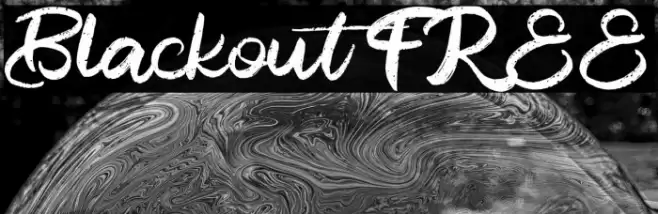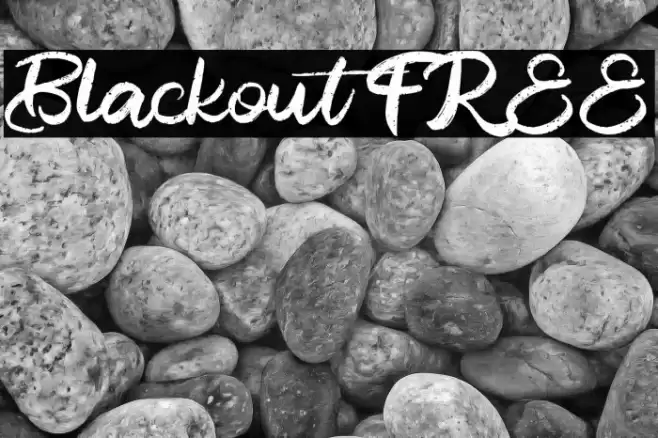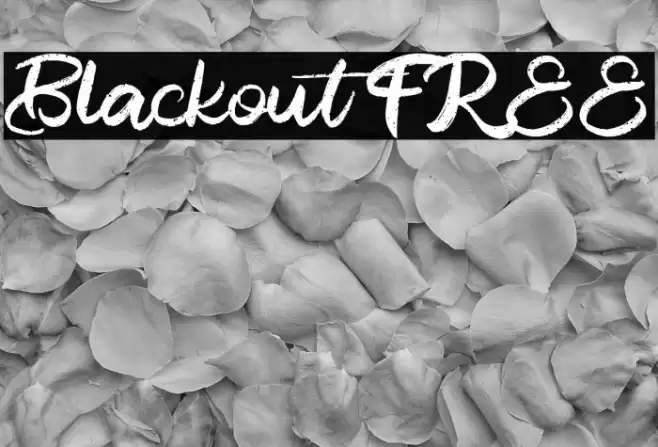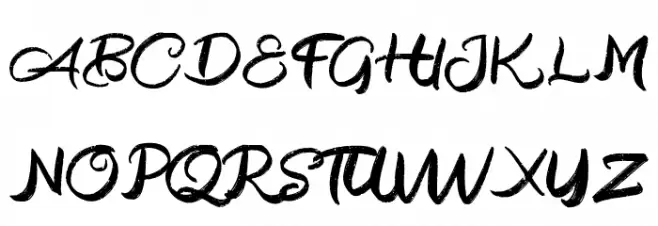
Blackout FREE Font
Blackout FREE Description
This font features a bold, expressive script style with a hand-painted appearance. The letters are characterized by their fluid, cursive strokes and a textured, brush-like finish that adds a dynamic and artistic flair. The uppercase and lowercase letters maintain a consistent flow, with some letters extending slightly below the baseline, enhancing its casual and informal look. The numbers and special characters follow the same stylistic approach, ensuring uniformity across all glyphs. This font's unique texture and lively movement make it stand out, offering a sense of creativity and spontaneity.
A bold, expressive script font with a hand-painted, brush-like texture from Regular fonts.
- Font: Blackout FREE
- Proposed Projects: Ideal for creative projects such as branding, logos, invitations, and artistic posters.
- Use Case: Logos, Headlines, Artistic projects